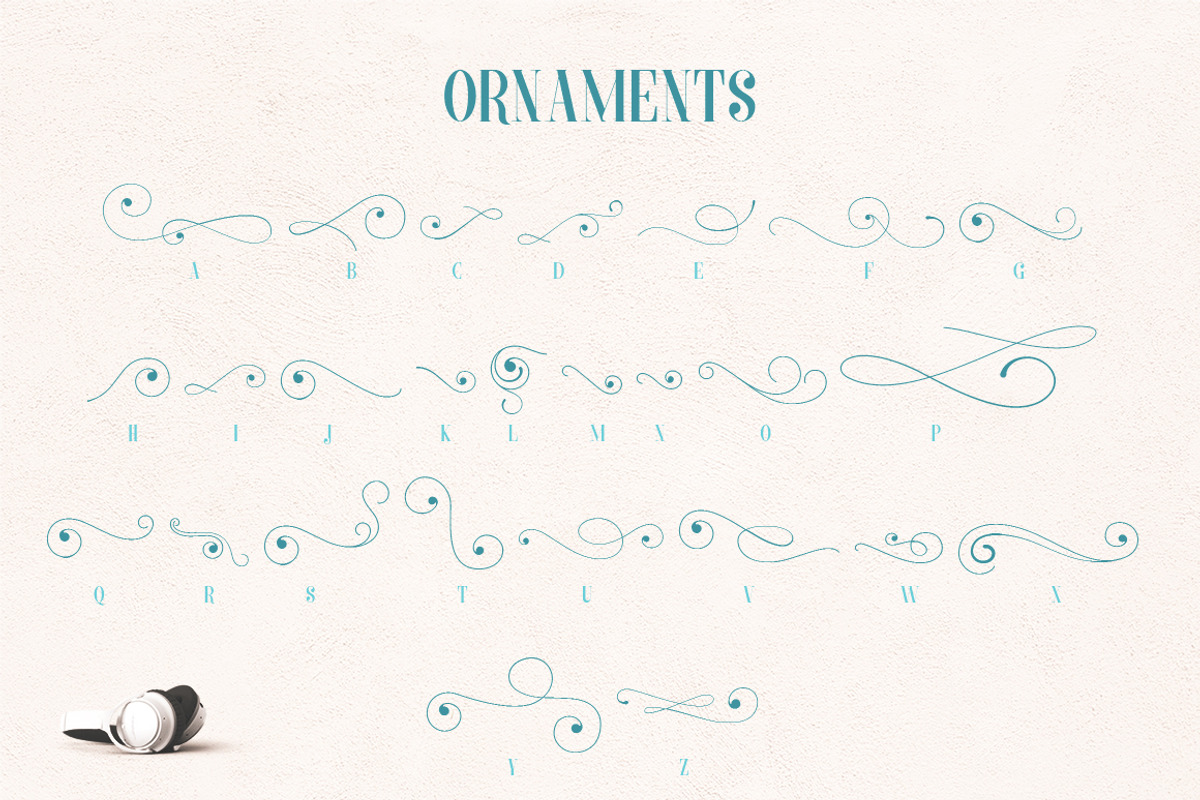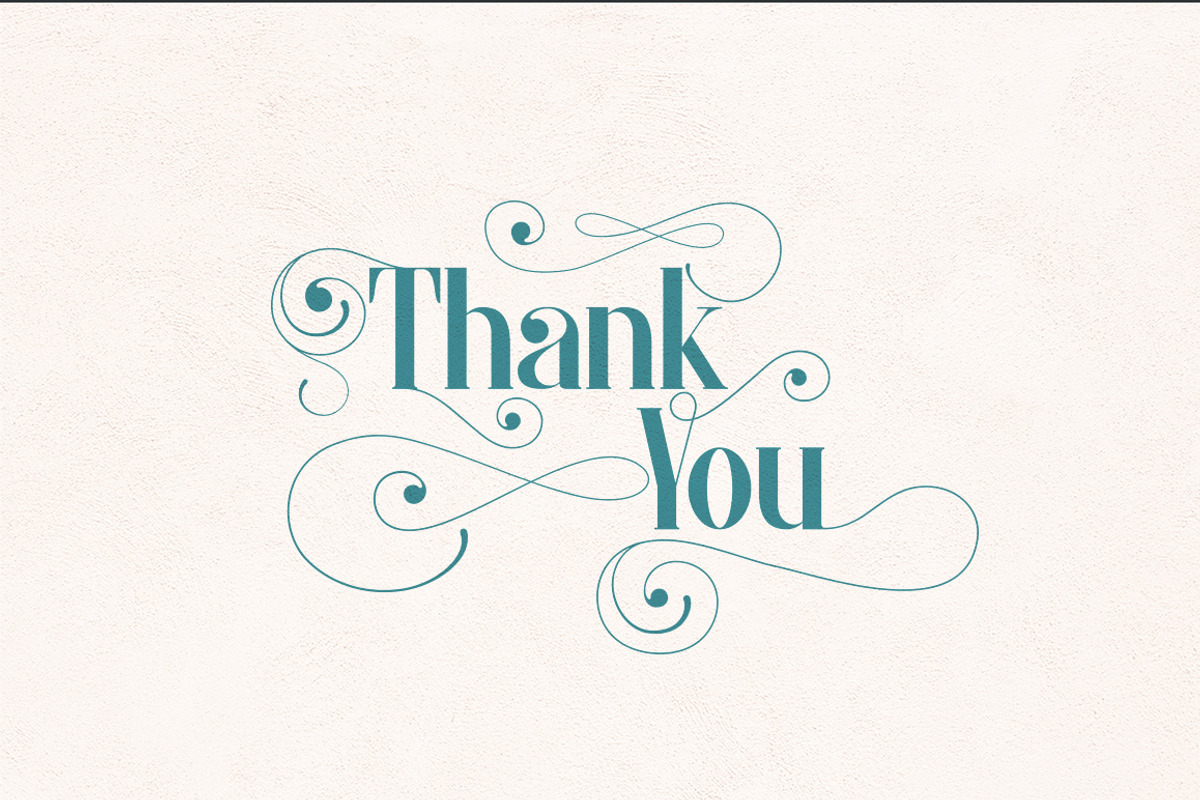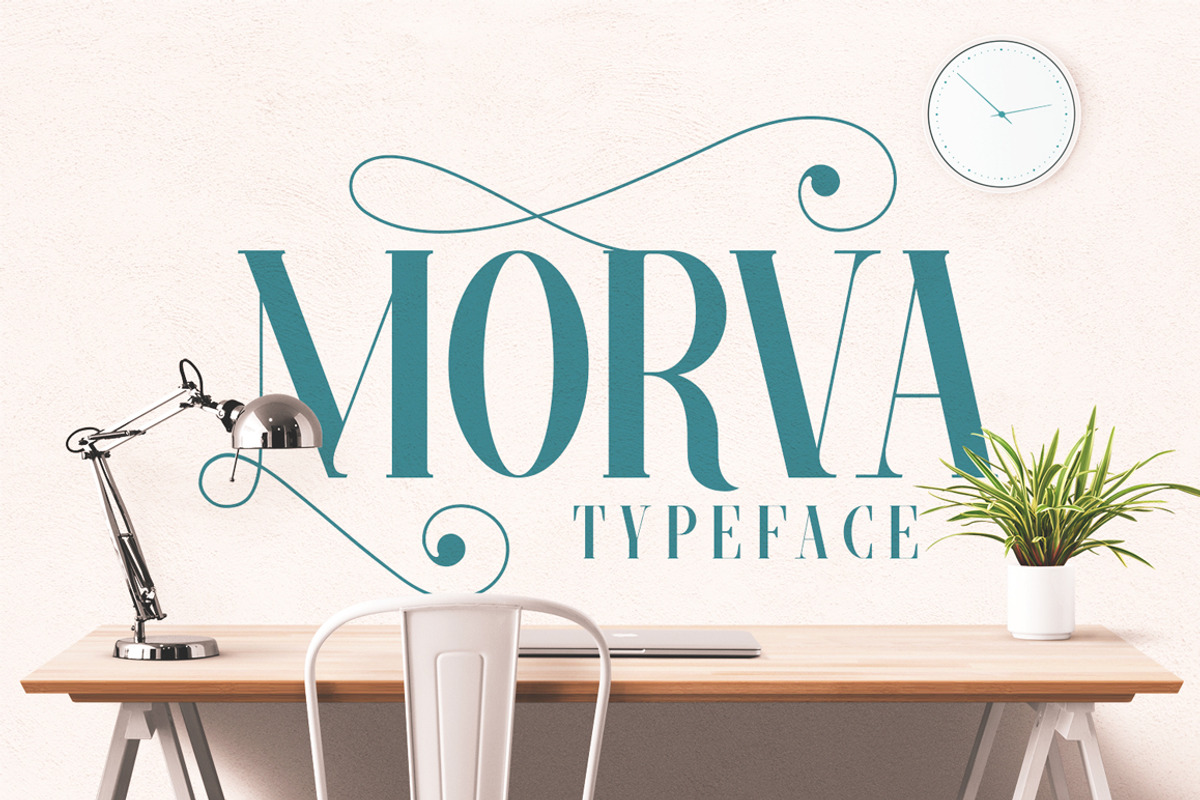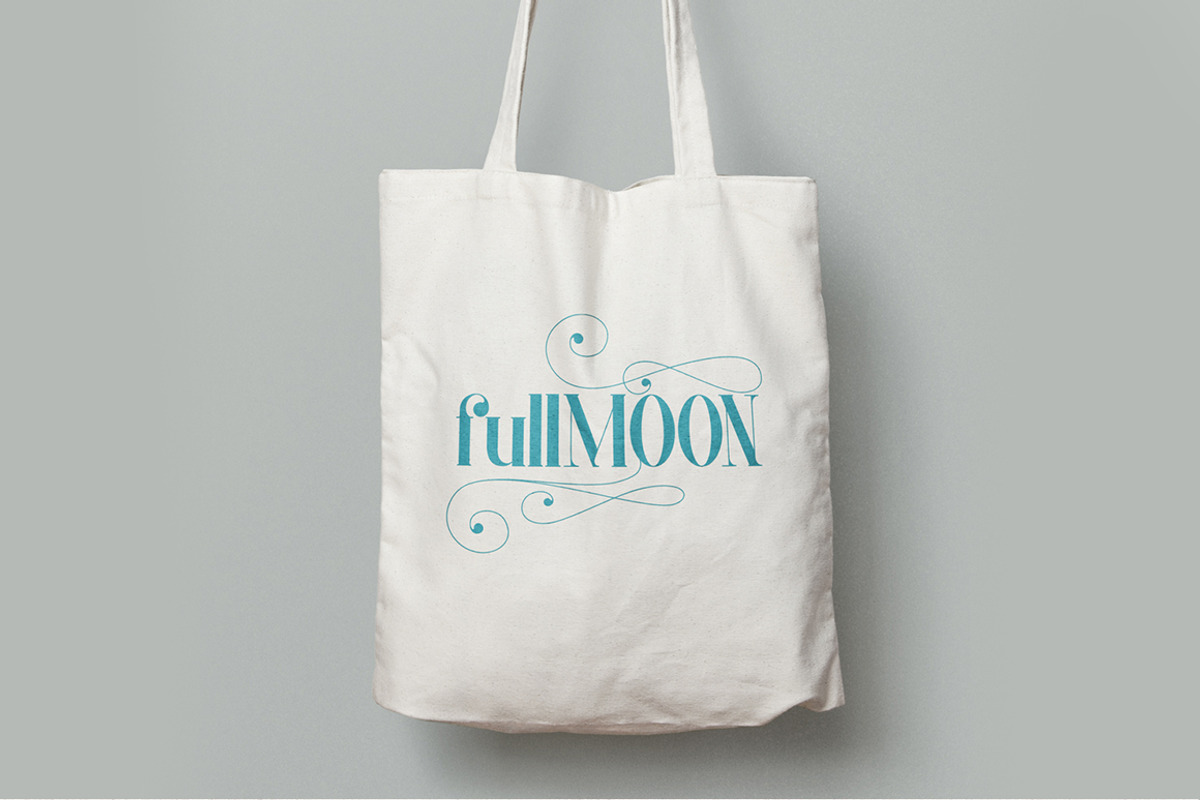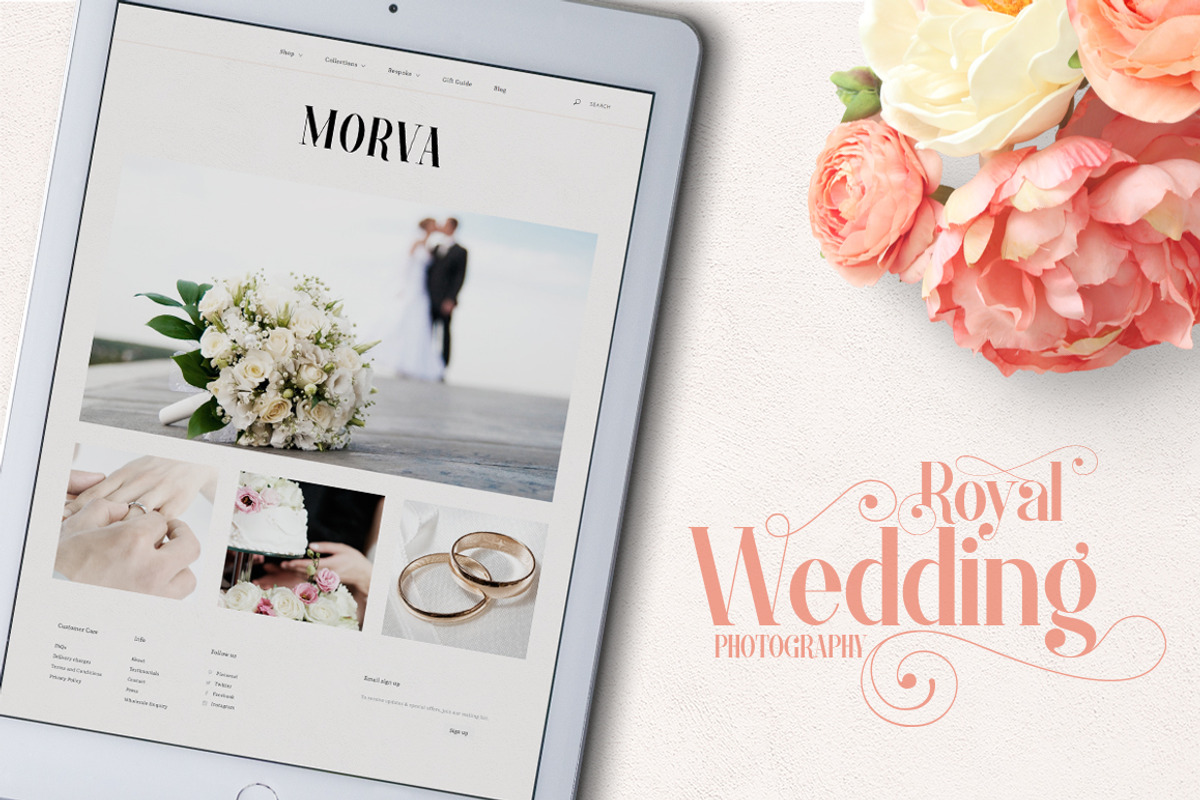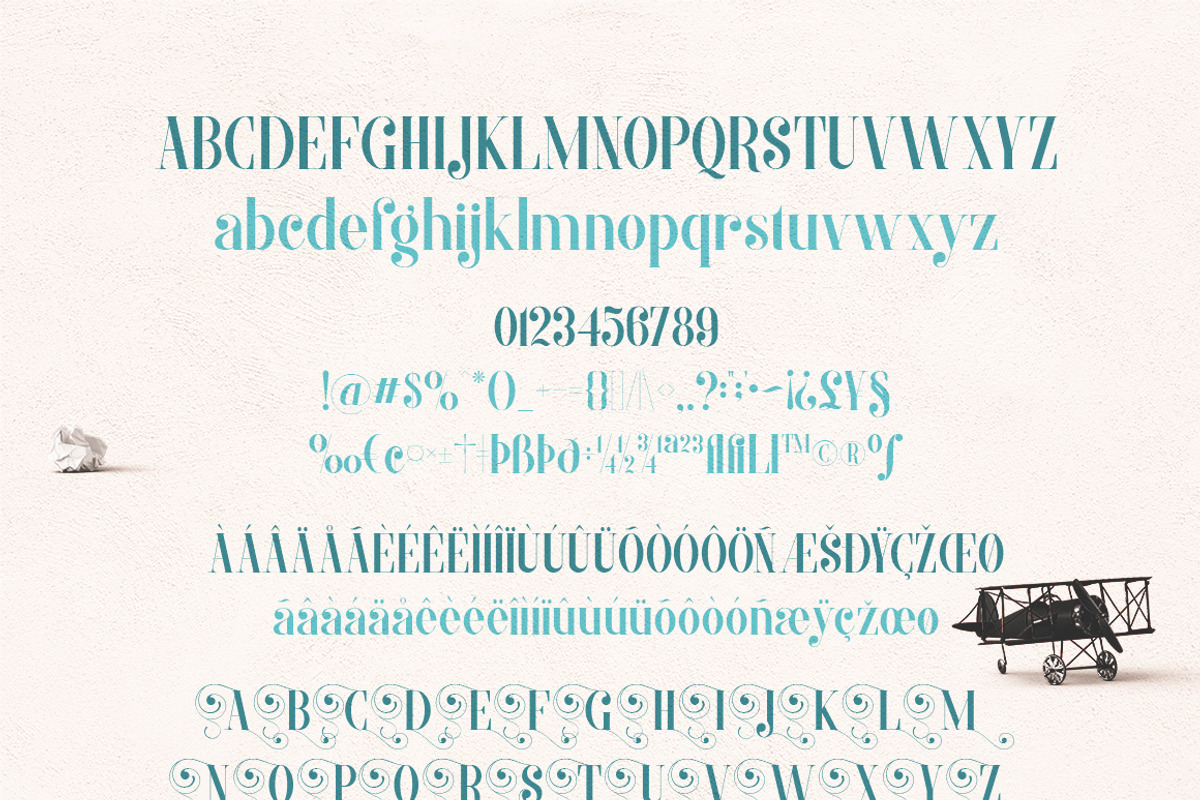
MORVA Typeface
Introducing MORVA TYPEFACE a simple and beautiful font made with persistence and passion. MORVA typeface have a unique character when compared with the others serif font, it have special bracketed serif shape and combine with beautiful swirl ornament's.
MORVA typeface is suitable for simple logo design, website header, wedding design, menu fonts for website. to design fashion, and others who have a minimalist and simple concept.
- Character uppercase and lowercase
- Ornament A-z ( 52 glyphs )